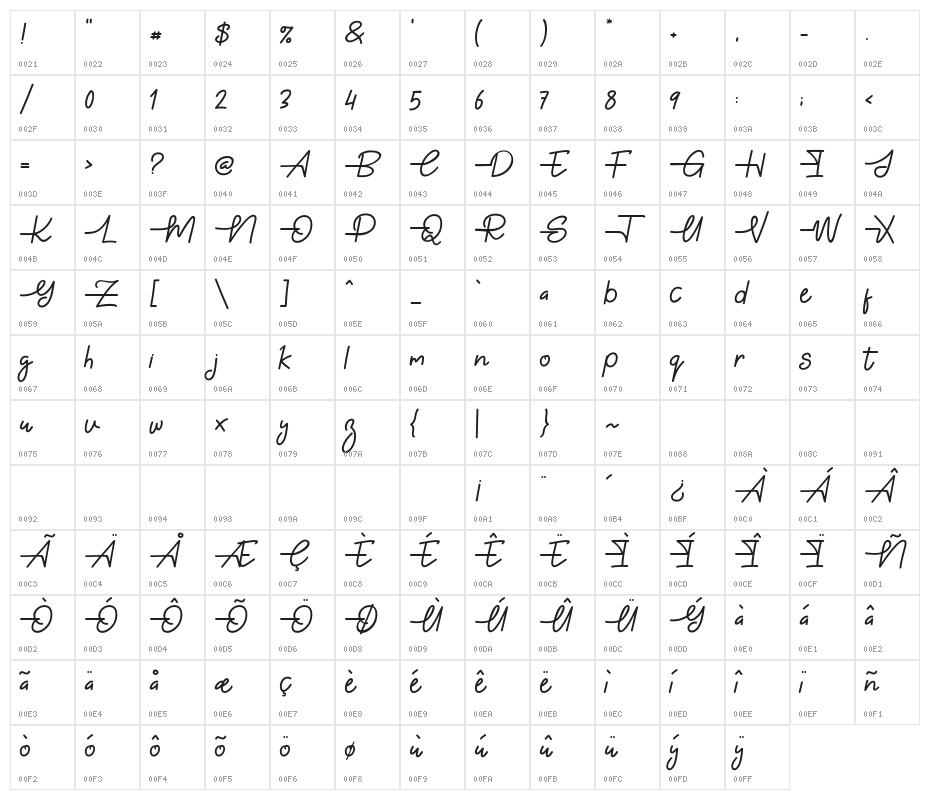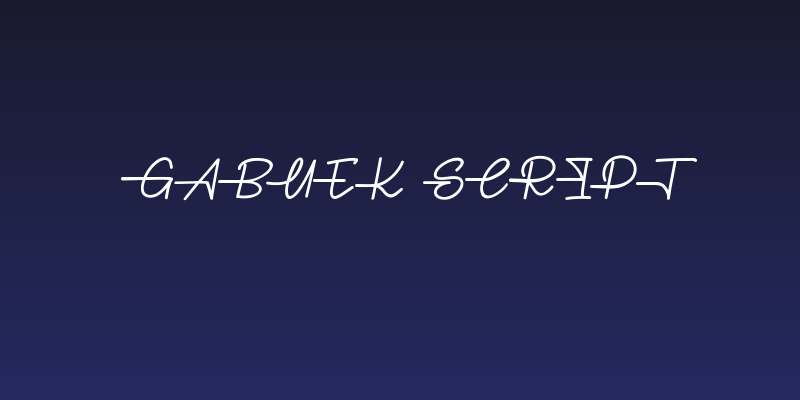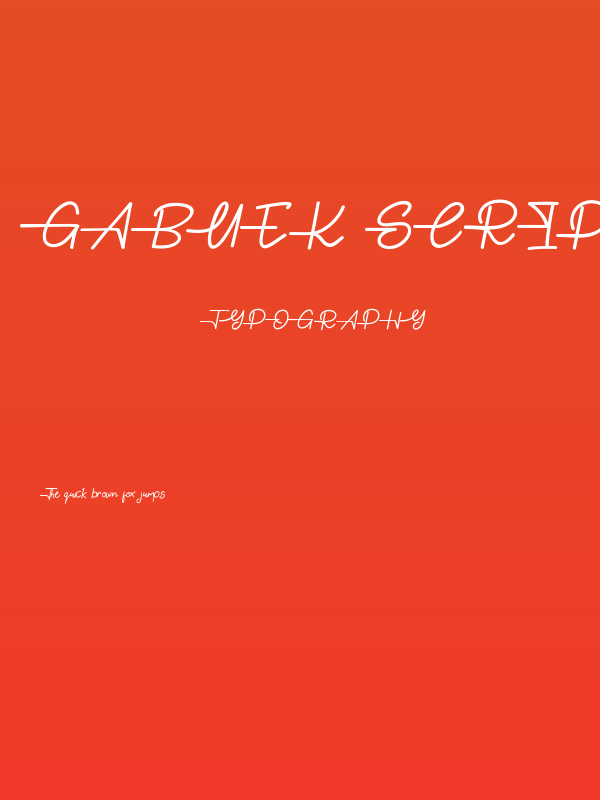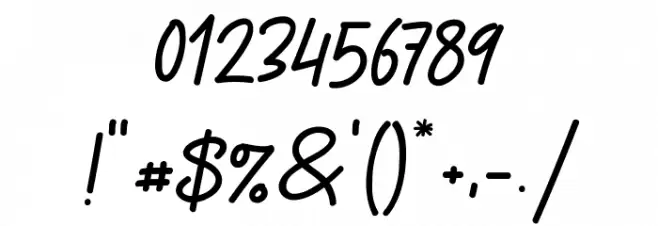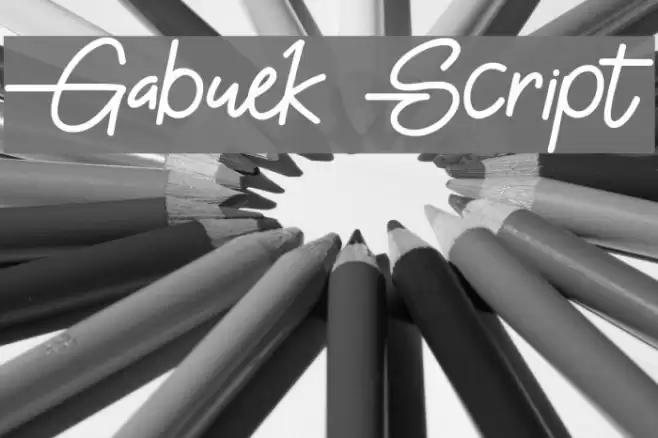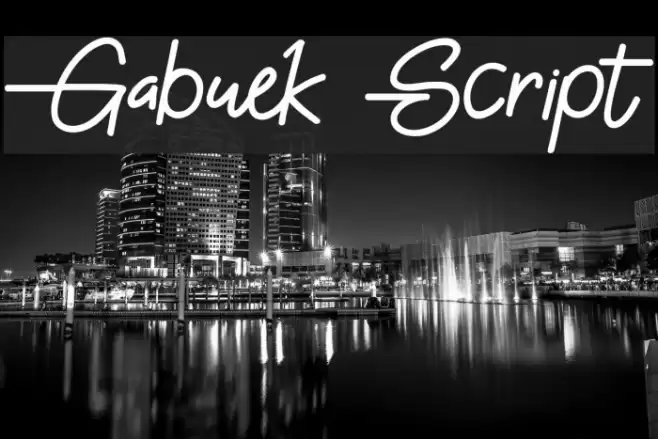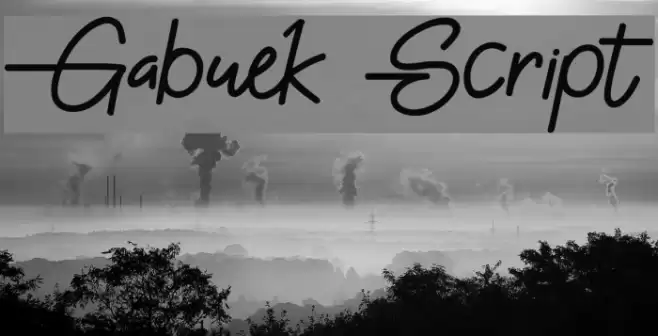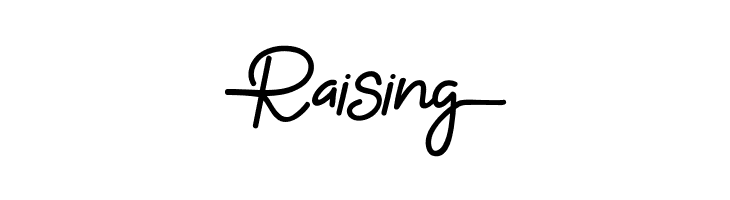
Gabuek Script Font
Gabuek Script Description
This font features a playful and dynamic script style with a handwritten appearance. The uppercase letters are distinct with a slight slant, while the lowercase letters flow smoothly with connected strokes, giving a casual and friendly vibe. The numerals are clear and consistent, matching the overall style. Special characters are well-integrated, maintaining the font's cohesive look. The strokes are moderately thick, providing good readability without sacrificing the font's decorative nature.
| Overall Style | Casual, Decorative |
| Proposed Projects | Ideal for greeting cards, invitations, personal branding, and creative projects that require a friendly, informal touch. |